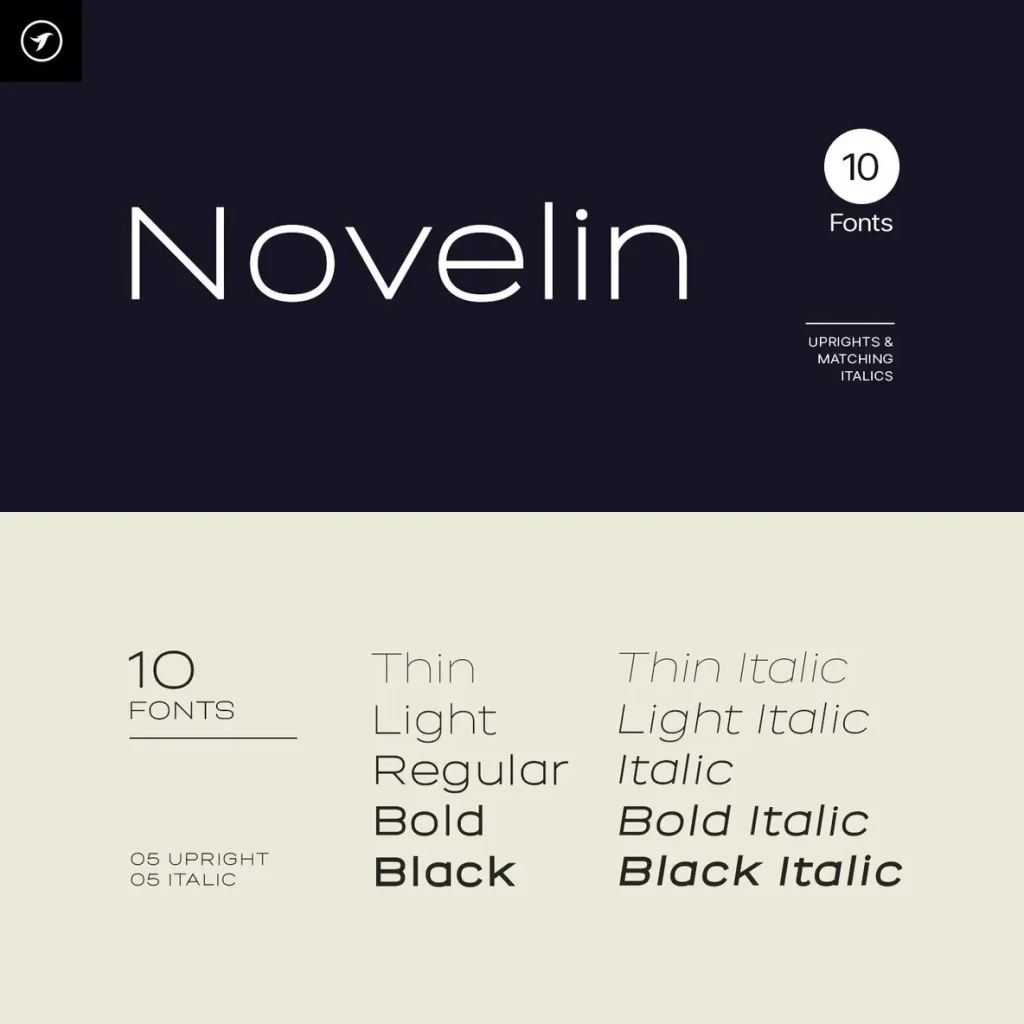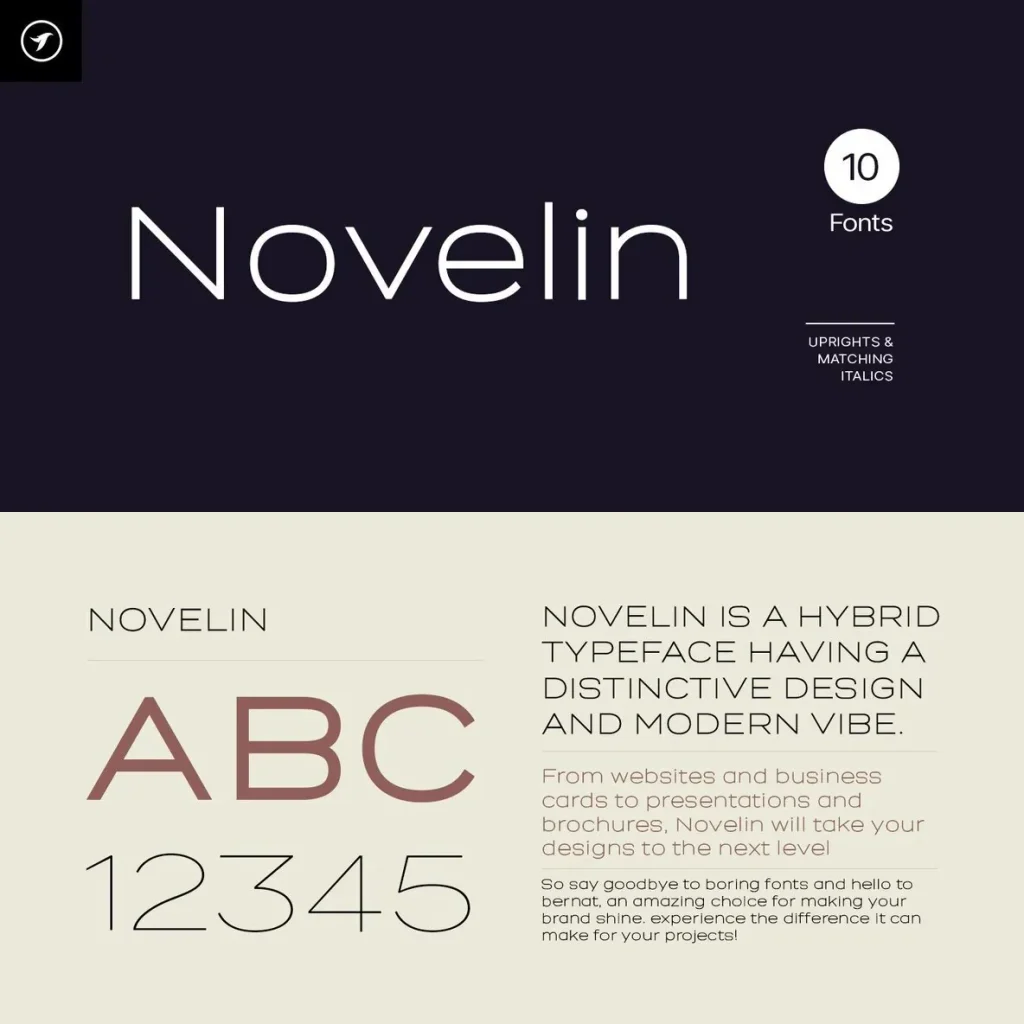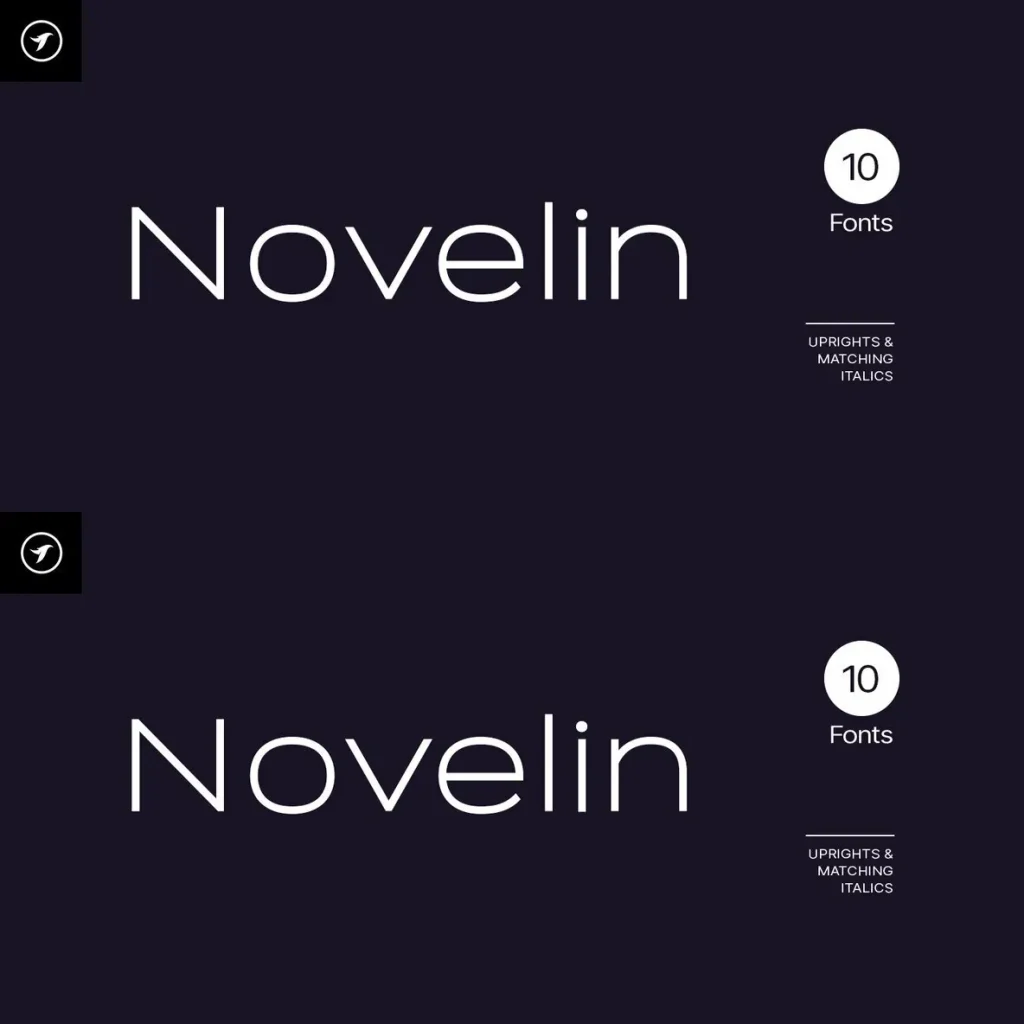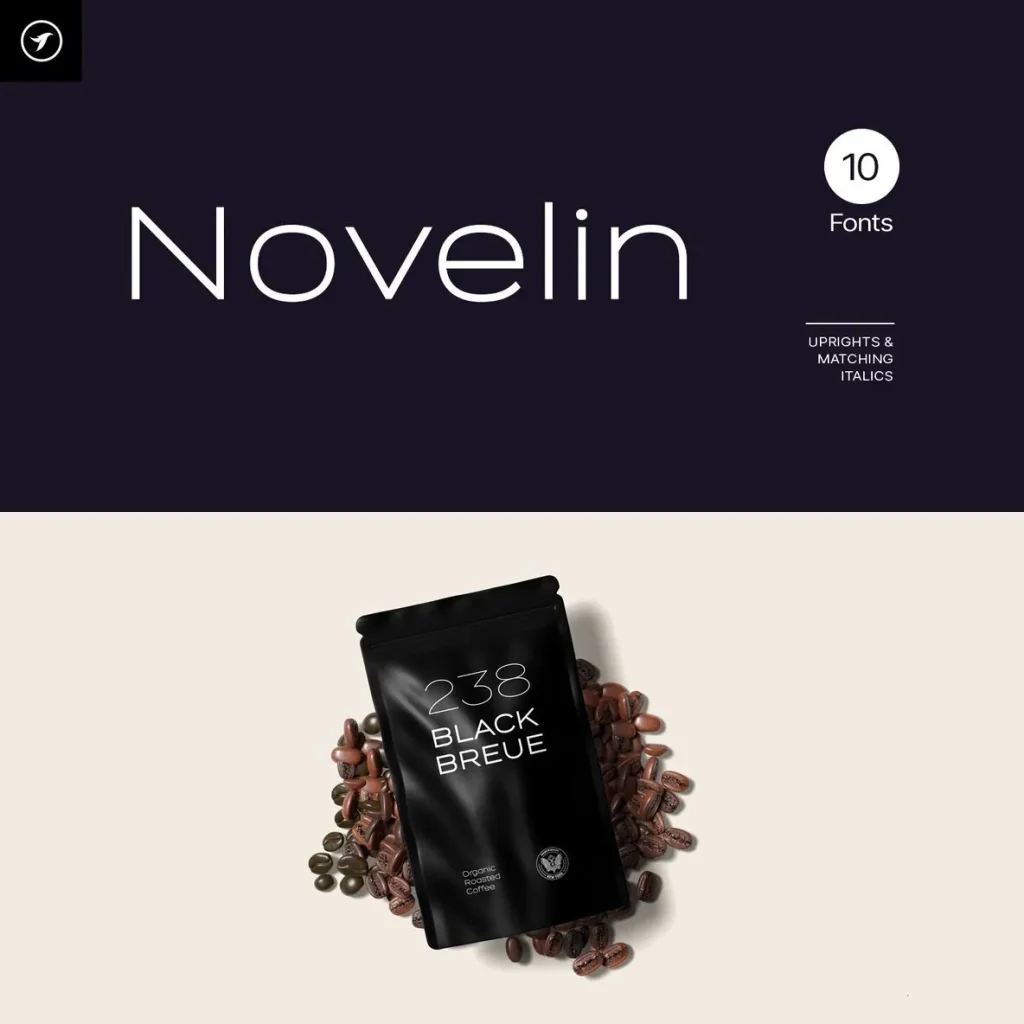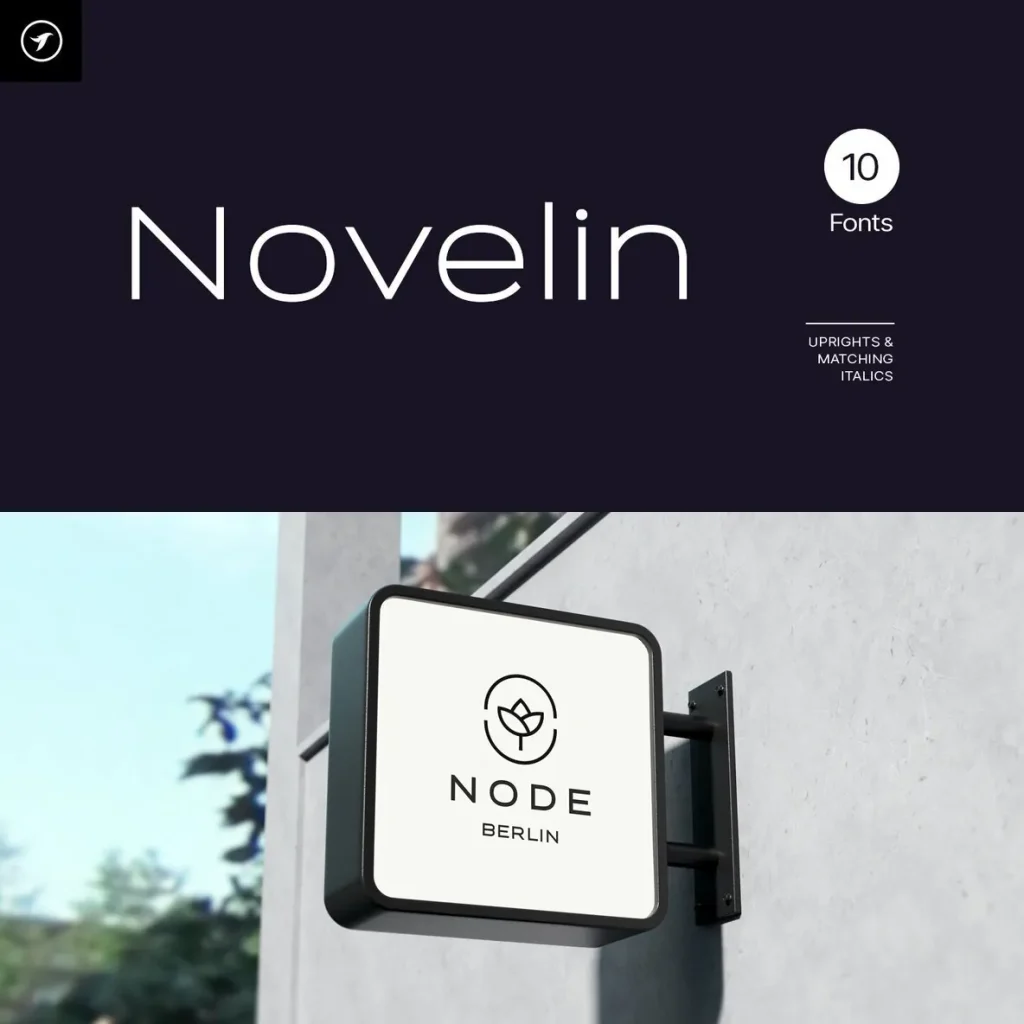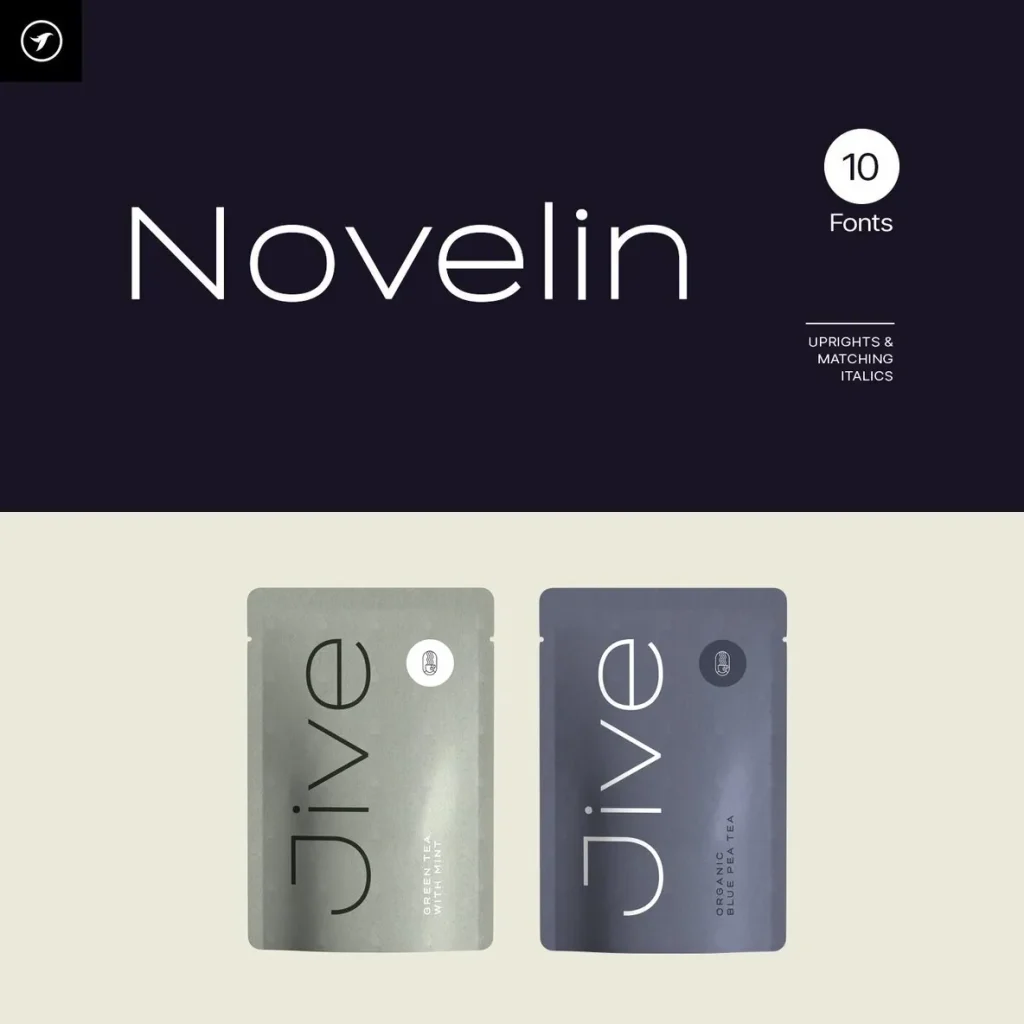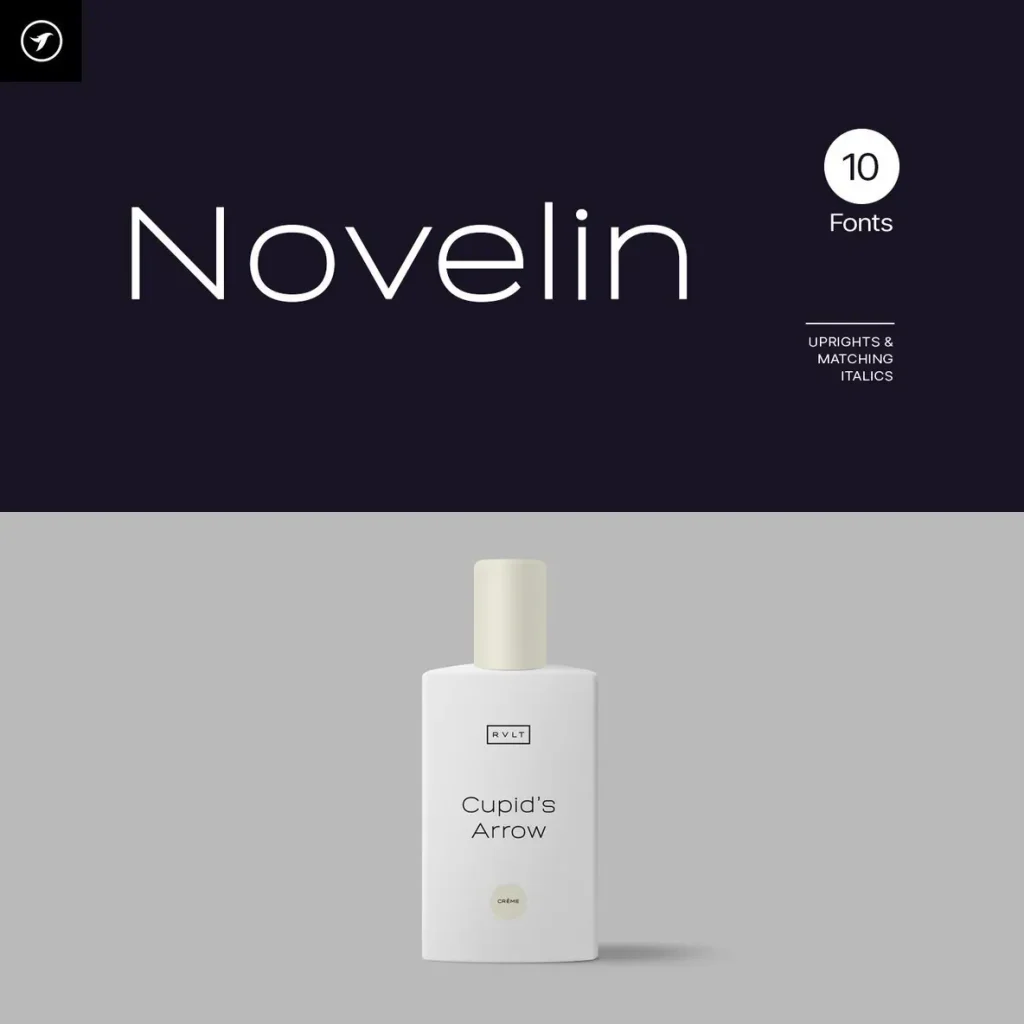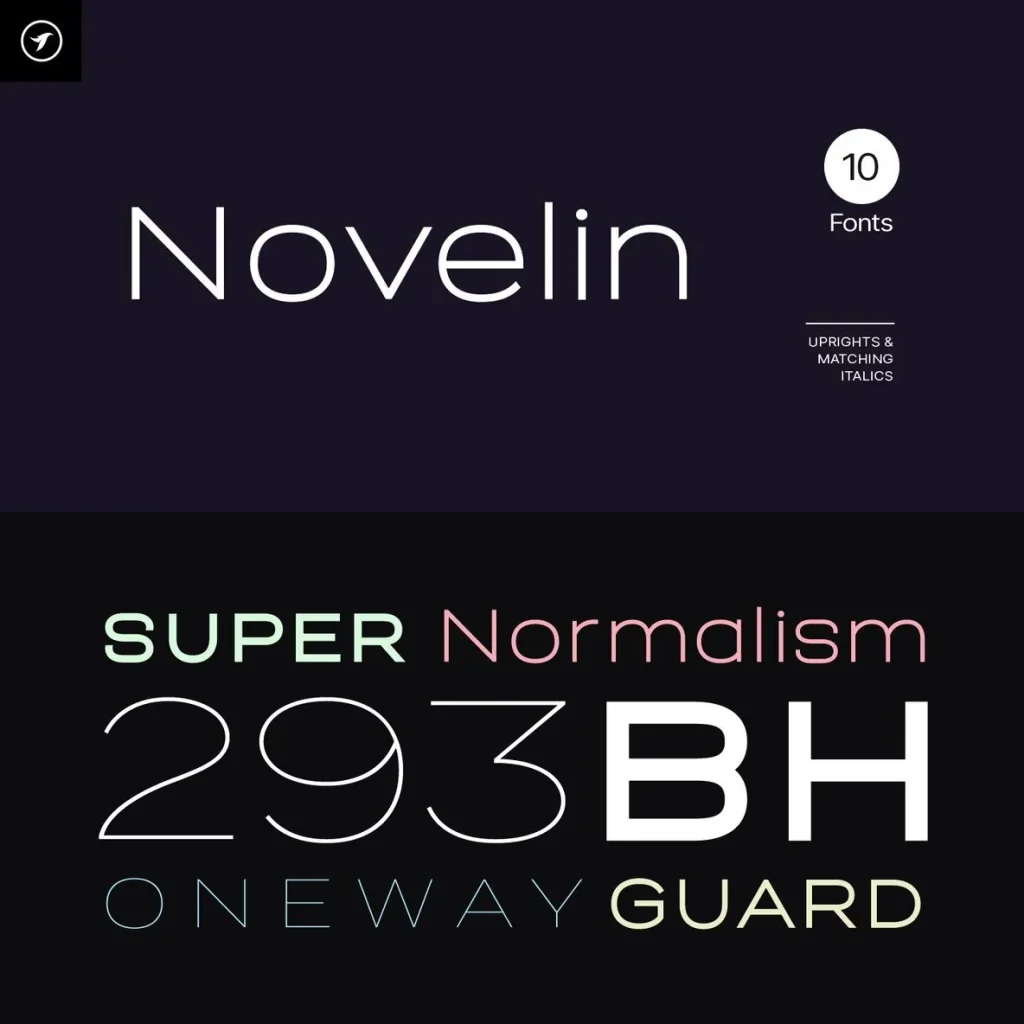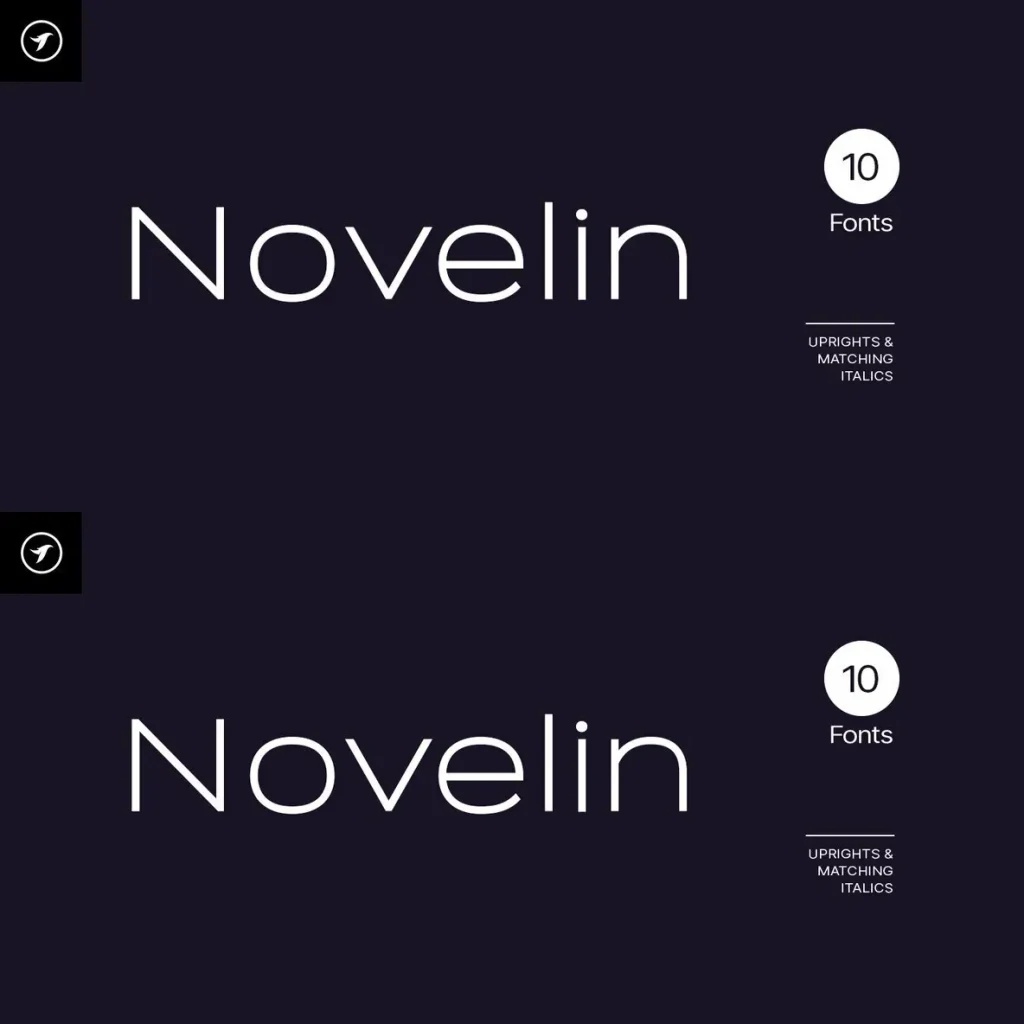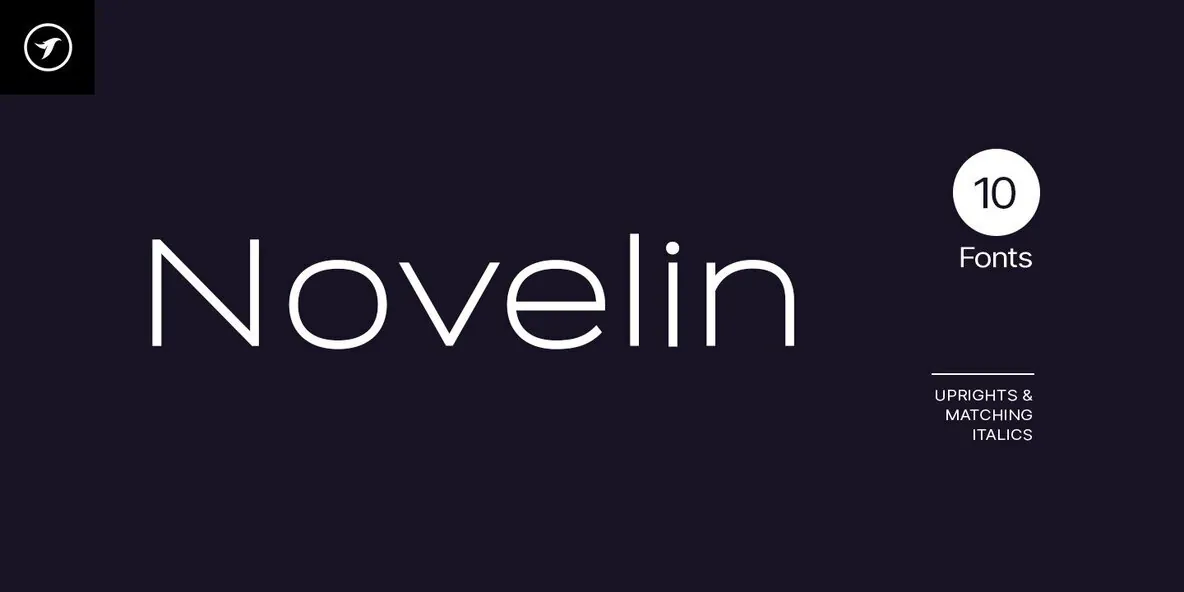
NOVELIN — Elegance With Distinctive Detail
NOVELIN is a unique modern typeface family that combines elegant structure with distinctive design details. Its carefully drawn letterforms give projects a memorable visual identity while preserving balance, clarity, and practical usability across refined graphic work.
Designed for branding, editorial projects, packaging, posters, and contemporary creative applications, NOVELIN suits designers who need a typeface with character and control. Its structure supports confident composition, while its details bring a recognizable tone to visual communication.